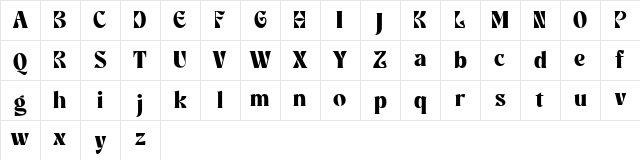
KLOREDEMO Regular
Foundry: Pentagonistudio
Designer: Pentagonistudio
Design Context for KLOREDEMO
KLOREDEMO is a composed and adaptable typeface that performs quietly and consistently across a wide range of design contexts.
Who designed the KLOREDEMO Regular font?